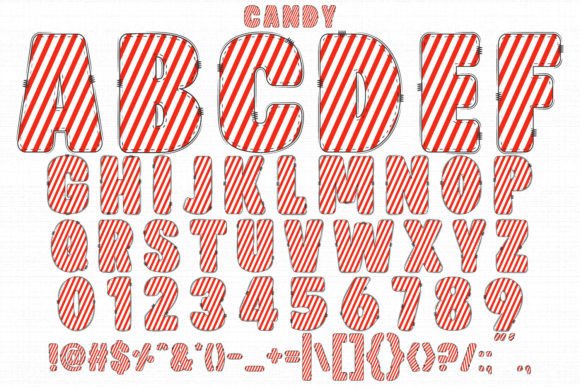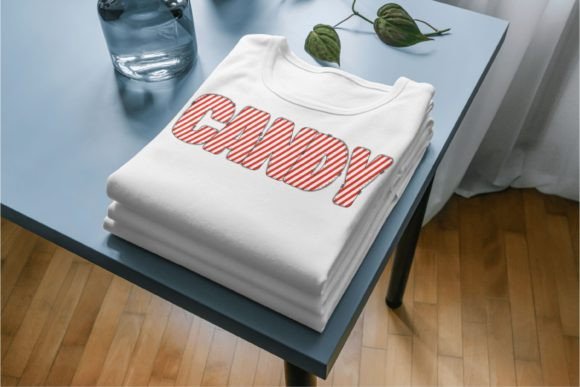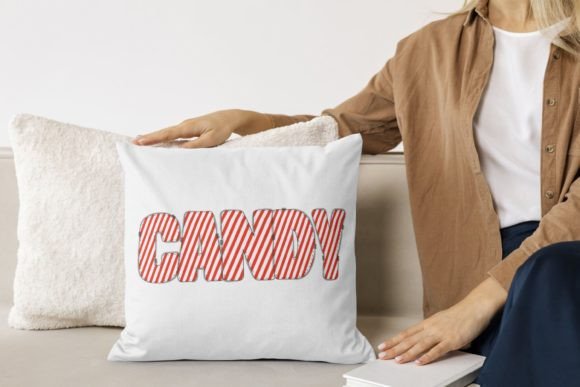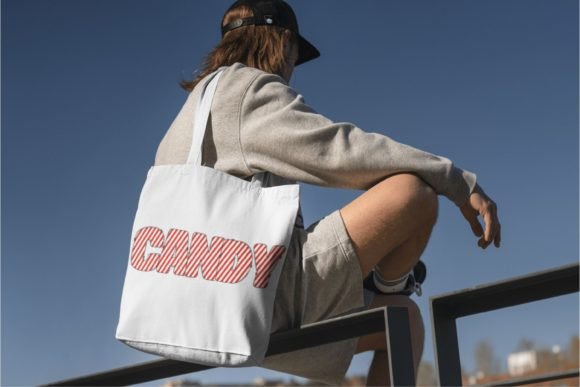
Unleash Your Creativity with the Sweetest Font Around
Have you ever stared at a blank page or screen, desperately searching for the perfect font to bring your creative vision to life? We’ve all been there – the blank stare, the frustration, and the endless scrolling through font options. But what if we told you there’s a font that can instantly elevate your designs and make your creations stand out?
Meet Candy Font, a delightful decorative font with a Candy skin texture that’s perfect for nature-themed designs and kids’ projects. This charming font is an incredible asset to any designer’s library, adding a touch of whimsy and playfulness to any creation. Whether you’re a seasoned pro or a beginner, Candy Font is a valuable addition to your design toolkit.
Candy Font Key Features
- Character Count: The font includes a wide range of characters, including Latin, Cyrillic, and Greek alphabets, with over 1000 glyphs.
- Font Size and Resolution: Candy Font is designed to be scalable and can be used at various resolutions, from low-resolution displays to high-resolution prints.
- Unique Characteristics: The font features a playful, whimsical design with rounded edges, making it perfect for use in children’s books, magazines, and other publications targeting a young audience.
Candy Font Review
First off, I have to say that the Candy Font is a sweet addition to any designer’s toolkit. The best part about this font is its playful, whimsical feel, which is perfect for creating eye-catching designs ✨. The font’s curves and lines are well-balanced, making it easy to read and use in a variety of contexts.
One of the standout features of the Candy Font is its versatility. It works well in both digital and print designs, and can be used to create a wide range of moods and emotions ✨. Whether you’re designing a children’s book, a candy-themed logo, or a social media graphic, this font is sure to add a touch of sweetness.
- Playful, whimsical feel
- Well-balanced curves and lines
- Versatile and easy to use
- Works well in both digital and print designs
- May not be suitable for formal or professional designs ⚠️
- Can be a bit too sweet for some tastes ⚠️
- May not be as readable in smaller font sizes ⚠️
Overall, I would give the Candy Font 4 out of 5 stars. While it may have some limitations, its versatility and playful feel make it a great addition to any designer’s toolkit. Just be sure to use it in the right context, and you’ll be sure to create designs that are as sweet as can be!
Getting the Most Out of Candy Font
To get the most out of Candy Font, use it in bold or italic styles to add emphasis.
Pair Candy Font with other playful fonts to create a fun and whimsical design.
Use Candy Font for headings and titles to add a touch of sweetness to your design.
Candy Font is perfect for:
Children’s book covers
Candy-themed party invitations
Food labels and packaging
Playful social media graphics
Alternatives to Candy Font for Designers
Great Vibes is a playful, cursive font suitable for titles, headings, and quotes. It’s perfect for adding a touch of whimsy to designs without being too overwhelming. Compared to Candy Font, Great Vibes is more elegant and refined, making it a great choice for formal or semi-formal designs.
Pacifico is a beautiful, modern script font ideal for headings, titles, and body text. It’s perfect for creating a sense of relaxation and calmness in designs. Compared to Candy Font, Pacifico is more sophisticated and elegant, making it a great choice for designs that require a touch of sophistication.
Lobster is a fun, cursive font perfect for titles, headings, and quotes. It’s great for adding a playful touch to designs without being too overwhelming. Compared to Candy Font, Lobster is more casual and relaxed, making it a great choice for informal or creative designs.
Coming Soon (Alternative)
Coming Soon is a modern, sans-serif font that can be used as an alternative to Candy Font. It’s perfect for creating clean and minimalistic designs. Compared to Candy Font, Coming Soon is more straightforward and simple, making it a great choice for designs that require a clean and modern look.